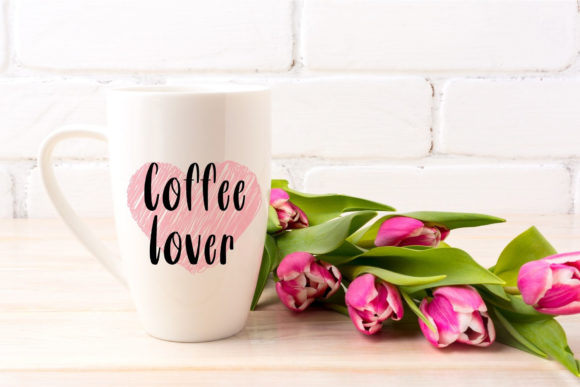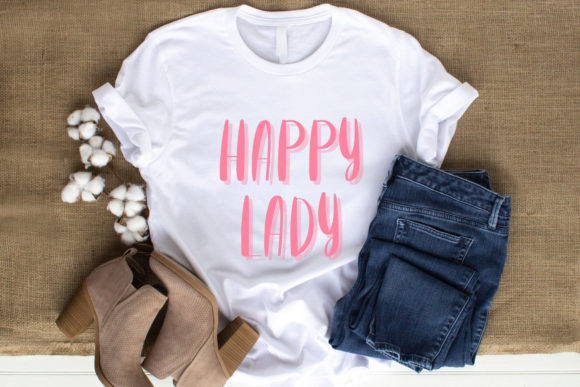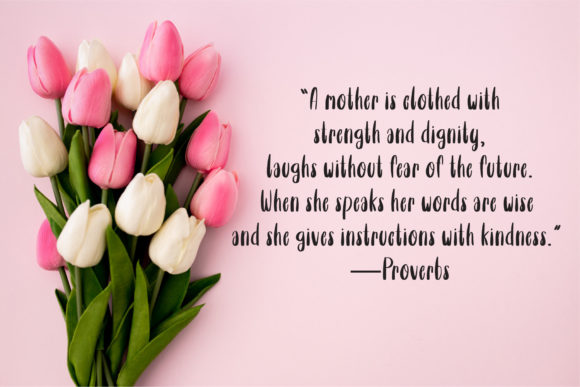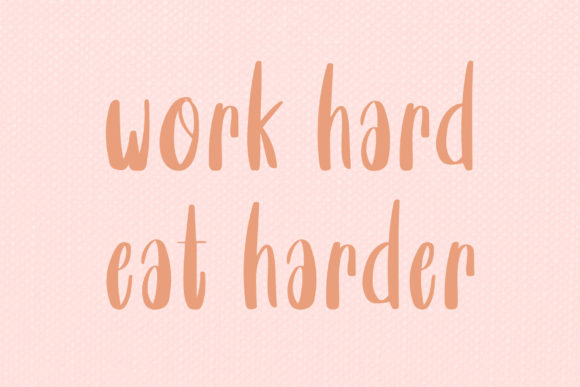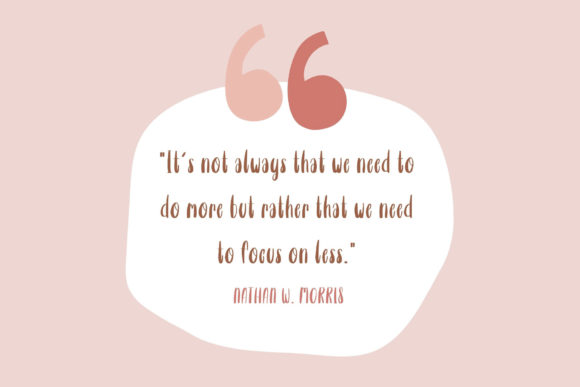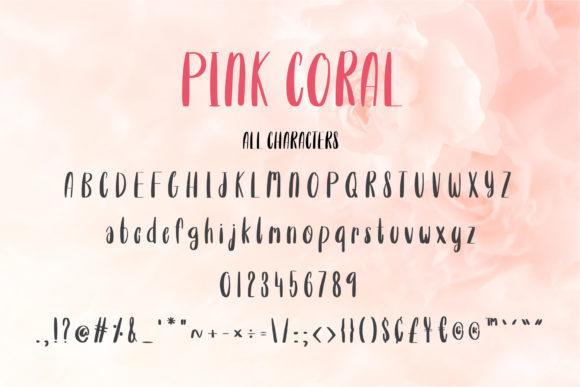
Introduction to Pink Coral Font
Pink Coral is a quirky and sweet script font.
It’s can be used for logos, branding, invitations, cards, wedding card, social media posts and much more .
Key Features of Pink Coral Font
Why Choose Pink Coral Font?